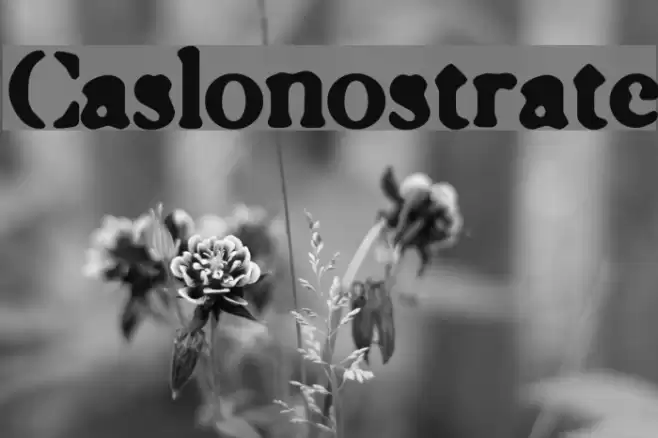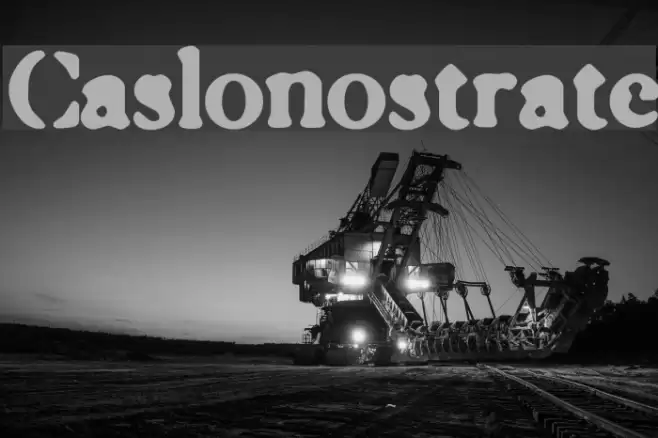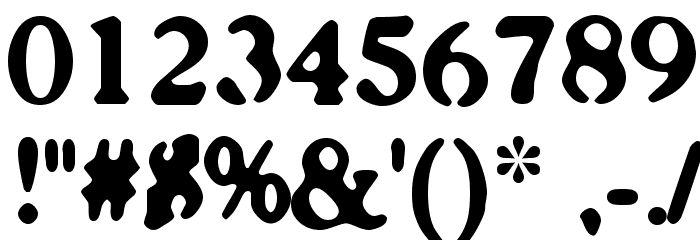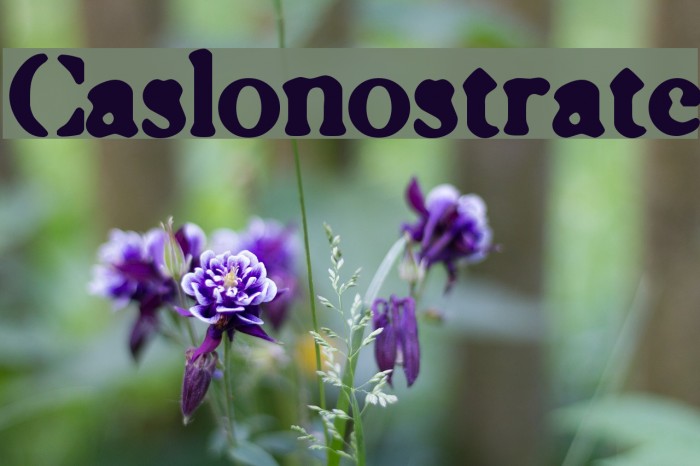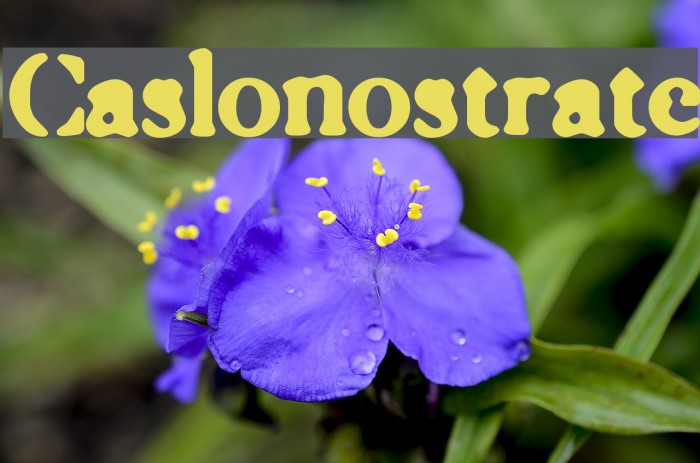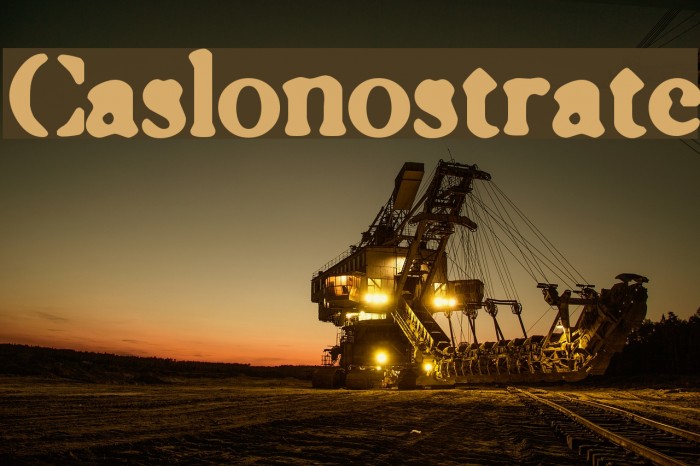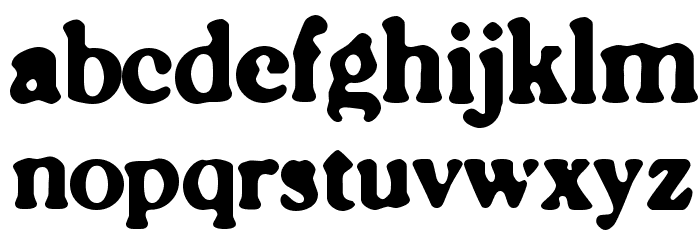
Caslonostrate Font
Caslonostrate Description
This font features a bold and playful design with a distinctly vintage flair. The characters are robust and have a strong presence, making them ideal for attention-grabbing headlines or logos. The uppercase letters are particularly striking, with unique curves and flourishes that add a touch of whimsy. The lowercase letters maintain this playful style, ensuring consistency across text. Numbers and special characters are equally bold, with a consistent weight that complements the alphabetic characters. The overall design is reminiscent of retro or vintage styles, making it suitable for projects that require a nostalgic or classic touch.
A bold, vintage-style font with playful curves and strong presence from Distorted Eroded fonts.
- Proposed Projects: Ideal for retro-themed posters, vintage branding, playful logos, and eye-catching headlines.
- Overall Style: Vintage